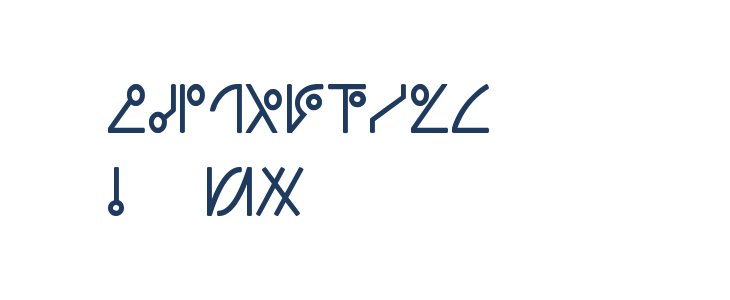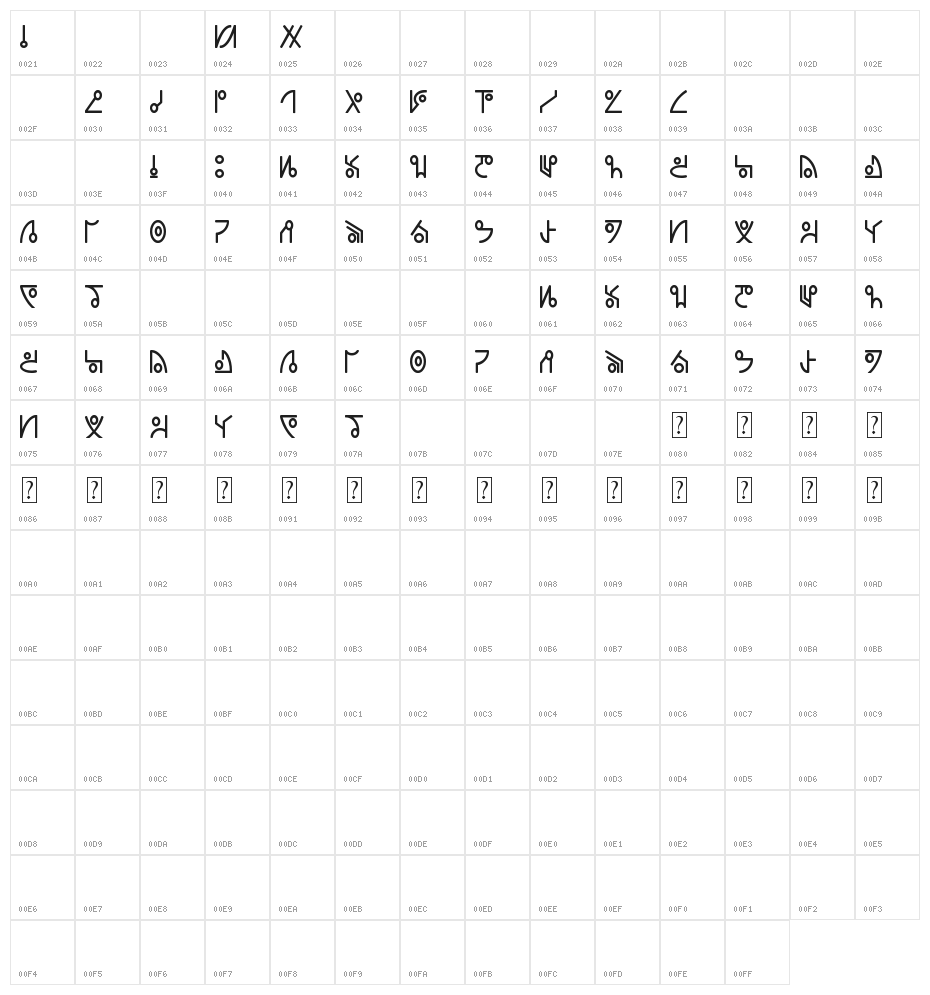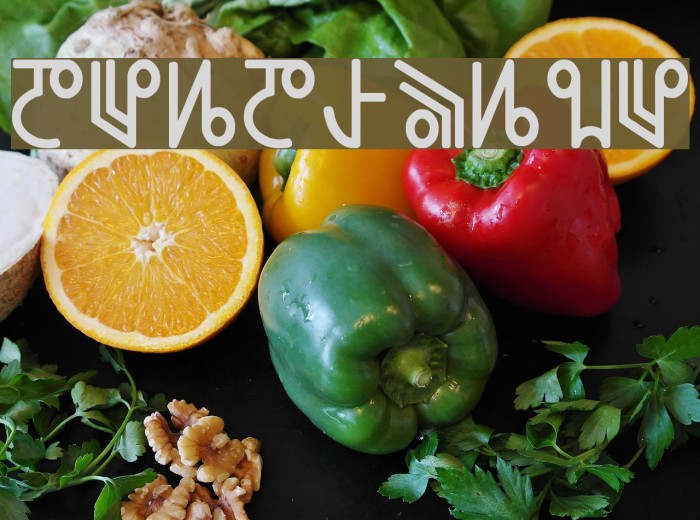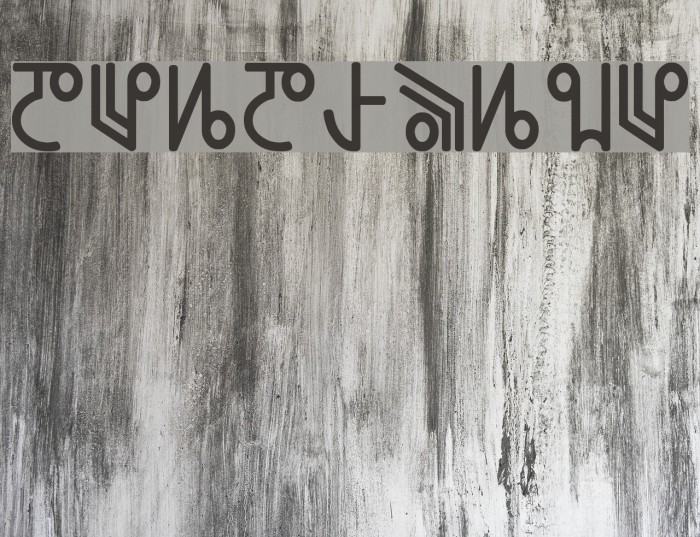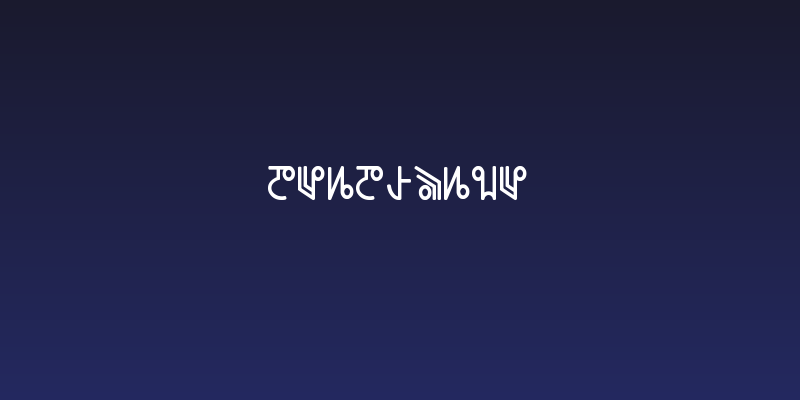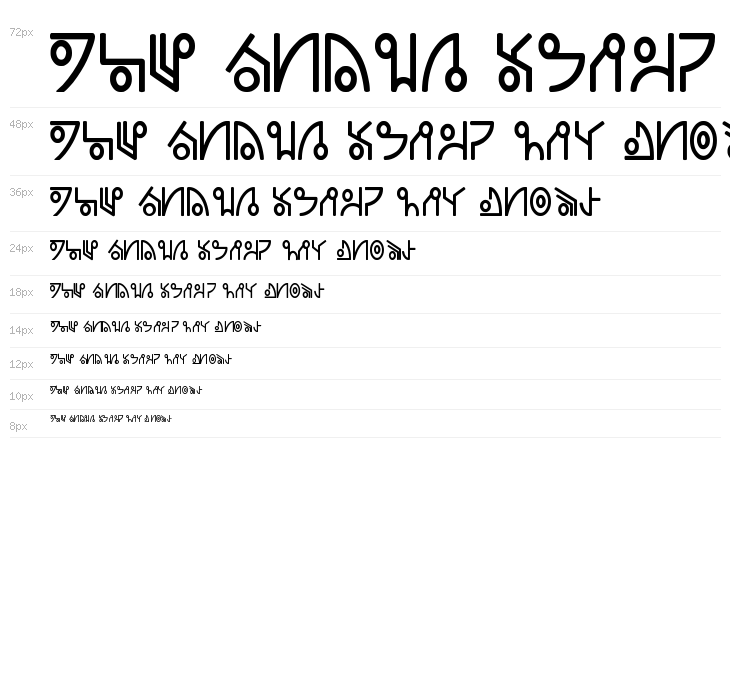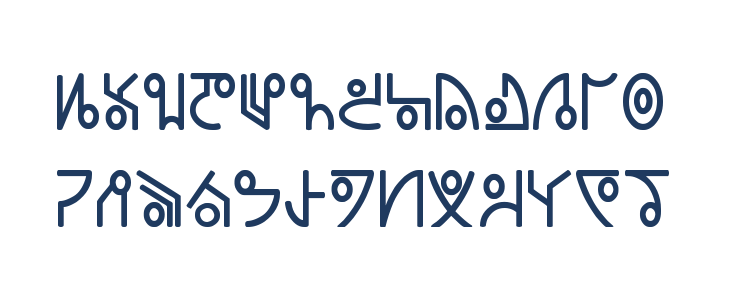
DeadSpace Font
DeadSpace Description
This font features a unique, alien-like script that is highly stylized and abstract, with each character resembling a futuristic symbol. The design incorporates smooth curves and sharp angles, creating a sense of mystery and otherworldliness. The characters are evenly spaced, contributing to a clean and organized appearance despite their unconventional shapes. This font is ideal for projects that require a science fiction or extraterrestrial theme, offering a distinct visual identity that stands out. The overall style is decorative and modern, with a focus on creating an immersive and imaginative experience.
| Use Case | Logos, Headlines, Themed designs |
| Proposed Projects | Ideal for video game design, movie posters, book covers, and any project needing a sci-fi or alien aesthetic. |